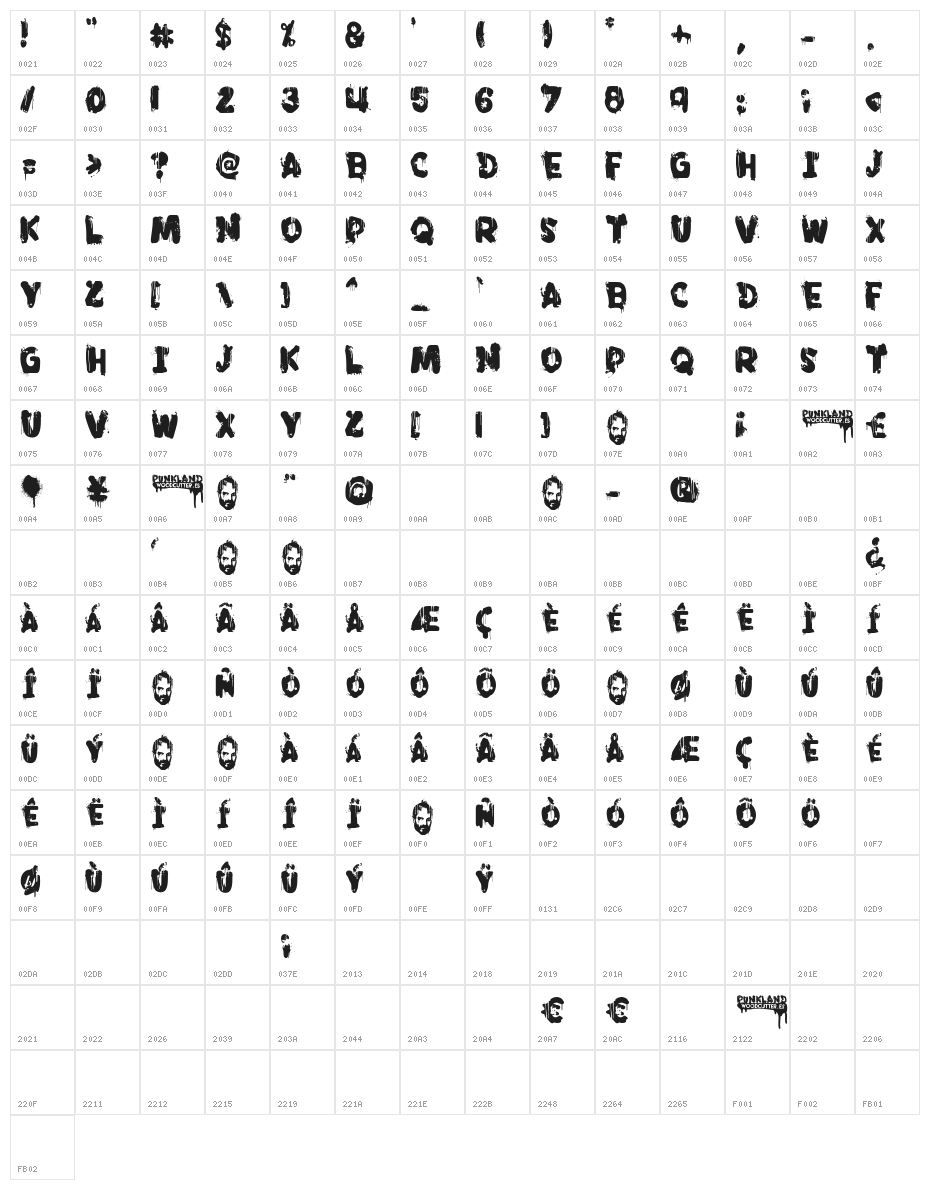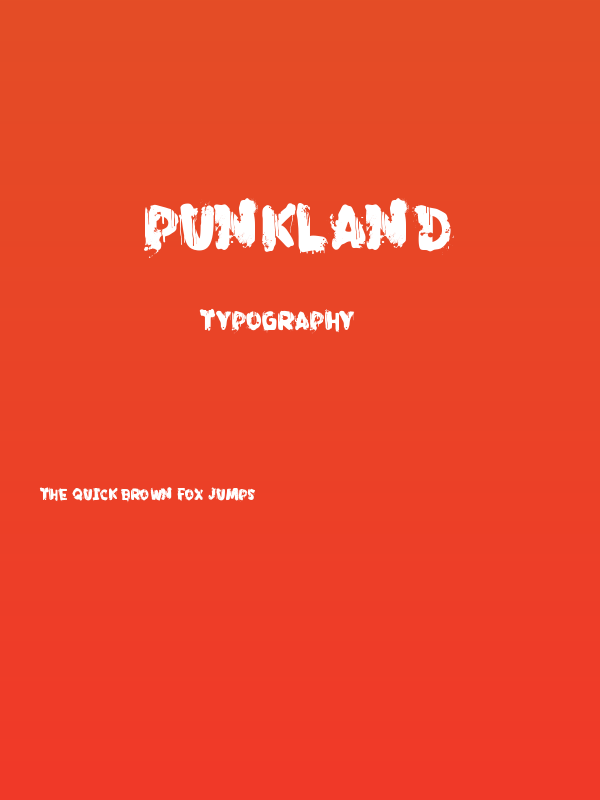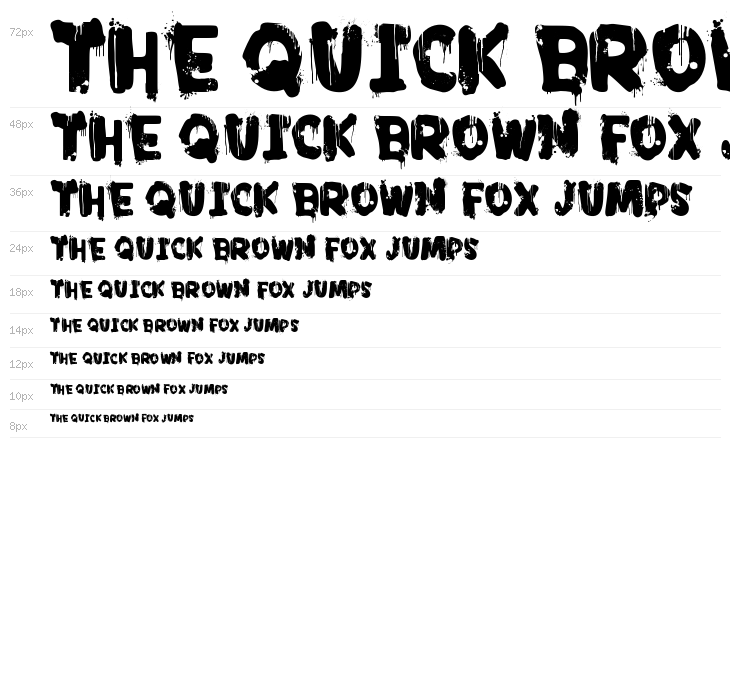
PunkLand Font
PunkLand Description
This font exudes a rebellious and edgy vibe, characterized by its bold, grungy appearance. Each letter is heavily textured, resembling splatters of paint or ink, giving it a raw and dynamic feel. The irregular edges and distressed look contribute to its punk aesthetic, making it stand out with a sense of urgency and attitude. The uppercase and lowercase letters maintain a consistent style, while the numbers and special characters follow suit, ensuring a cohesive look across all elements. This font is perfect for projects that aim to capture a sense of chaos, energy, and nonconformity.
| Overall Style | Punk, Grunge, Edgy |
| Proposed Projects | Ideal for music album covers, streetwear branding, event posters, and any design needing a bold, edgy statement. |